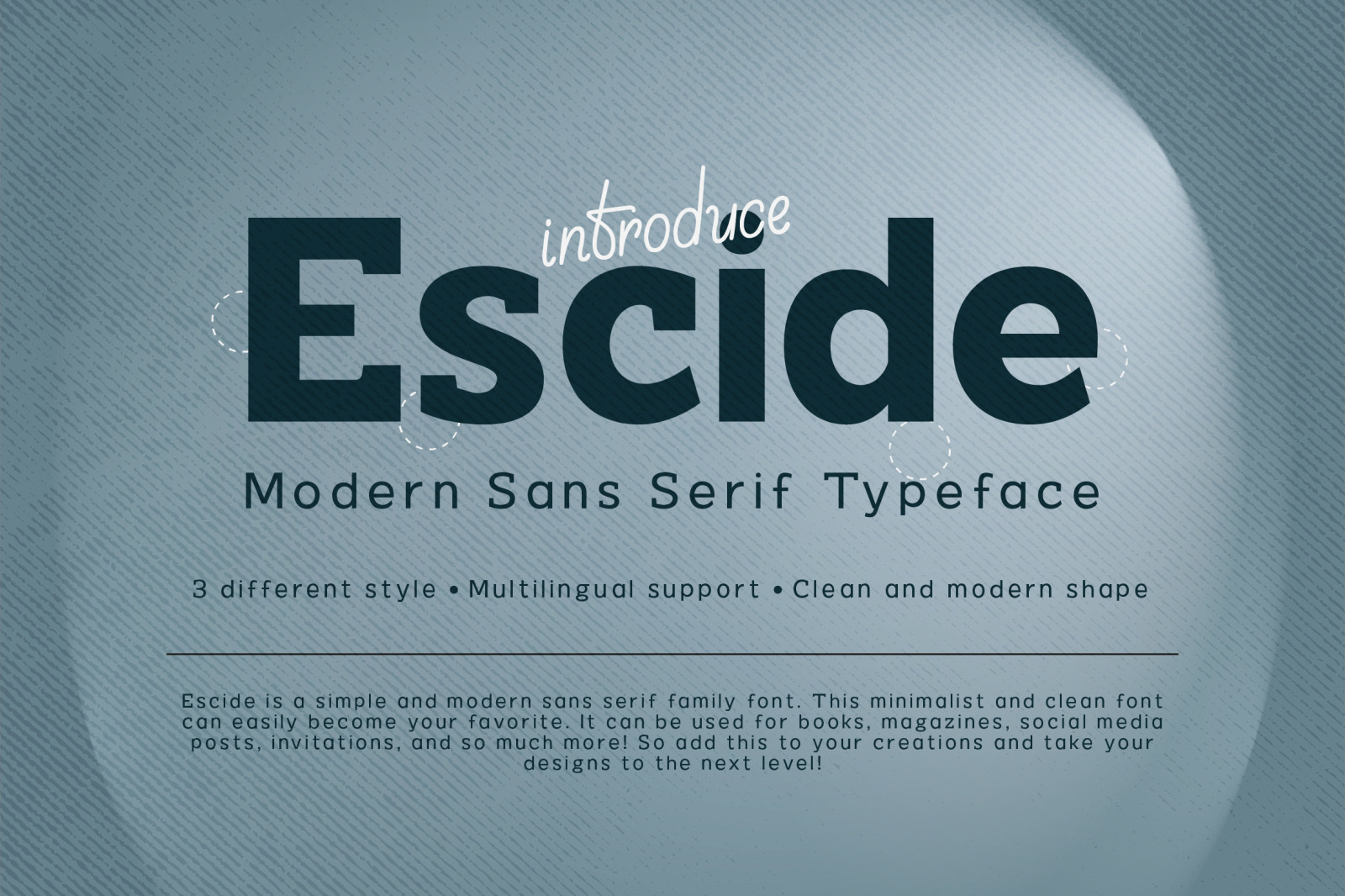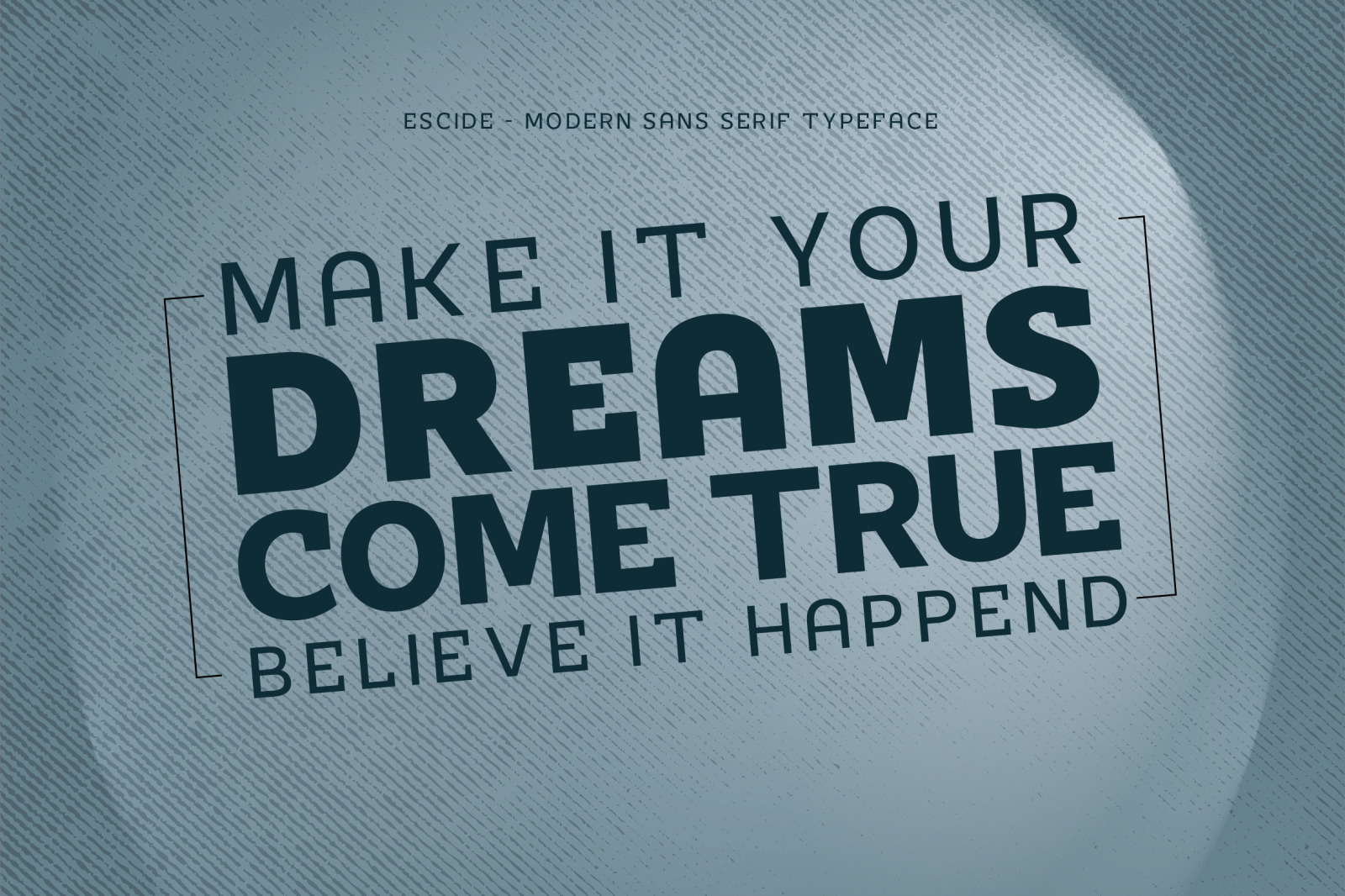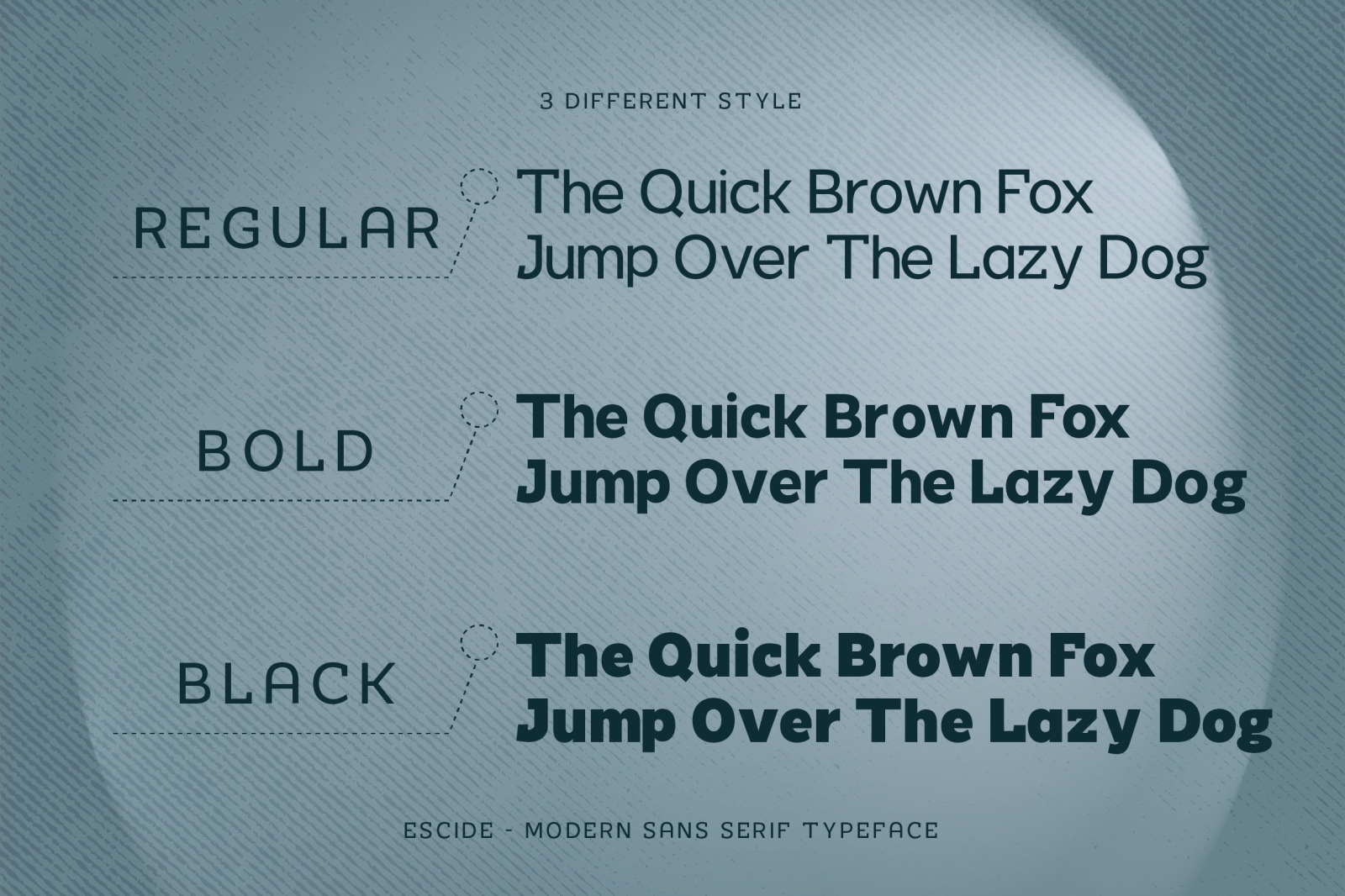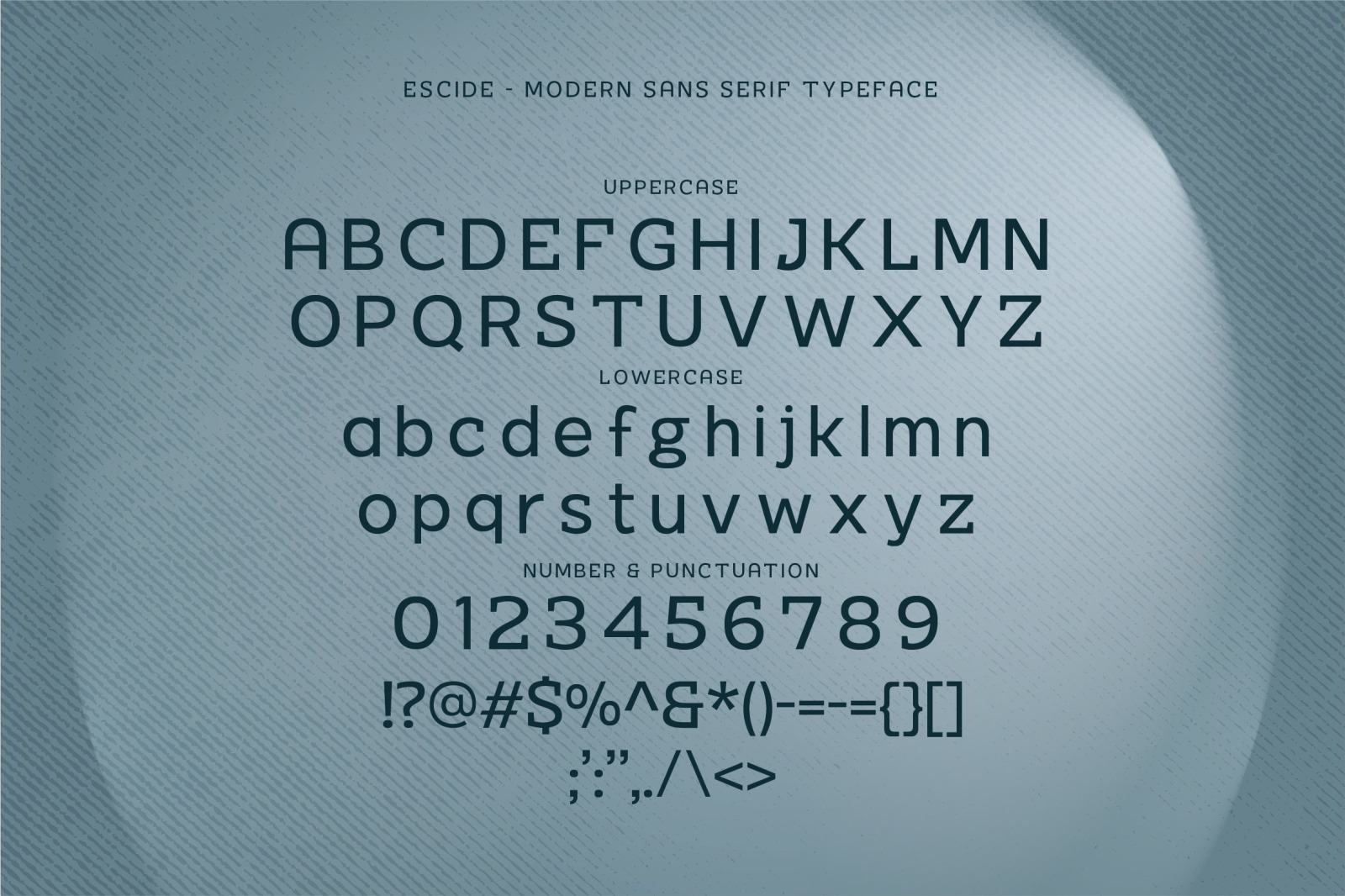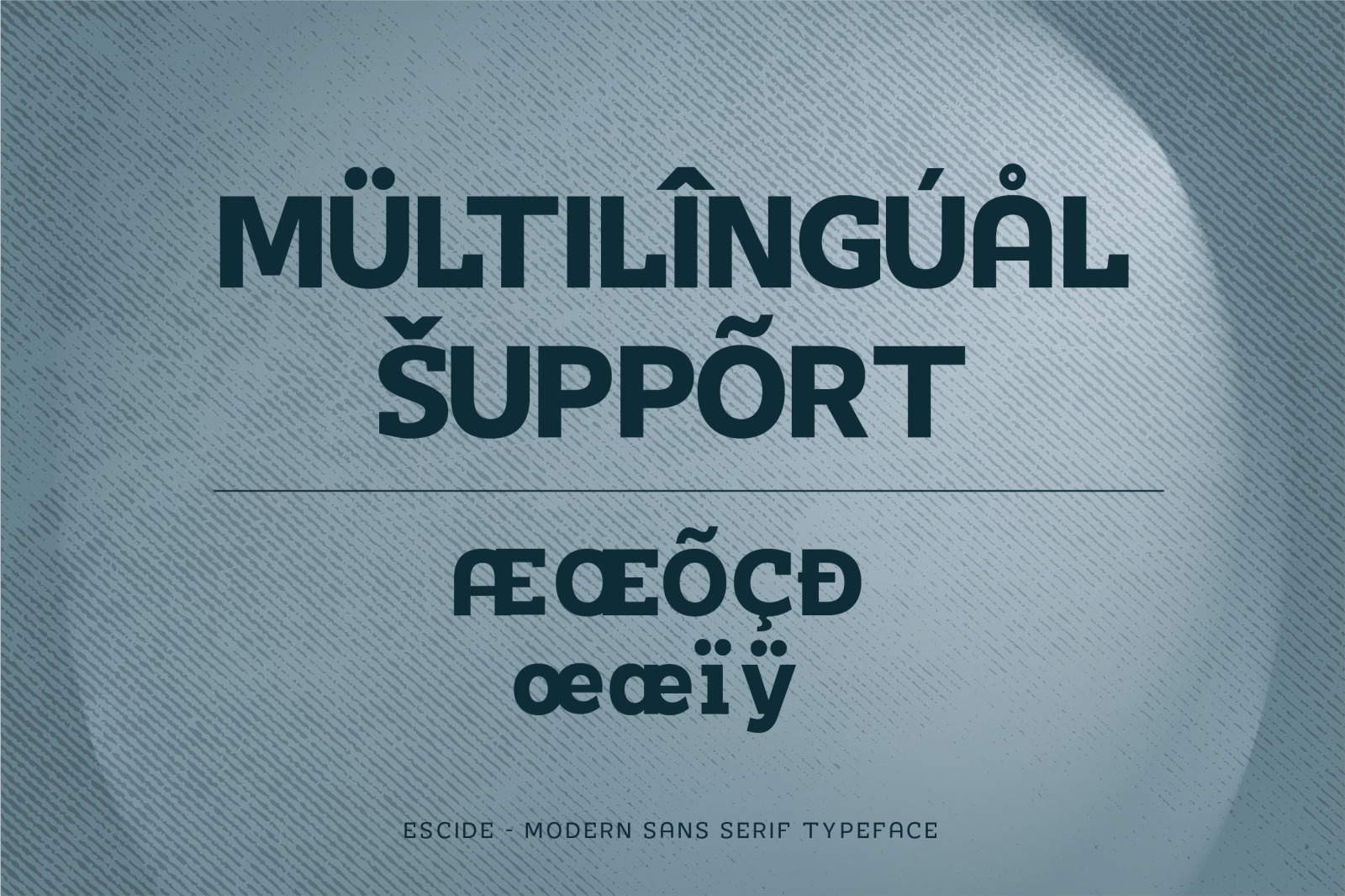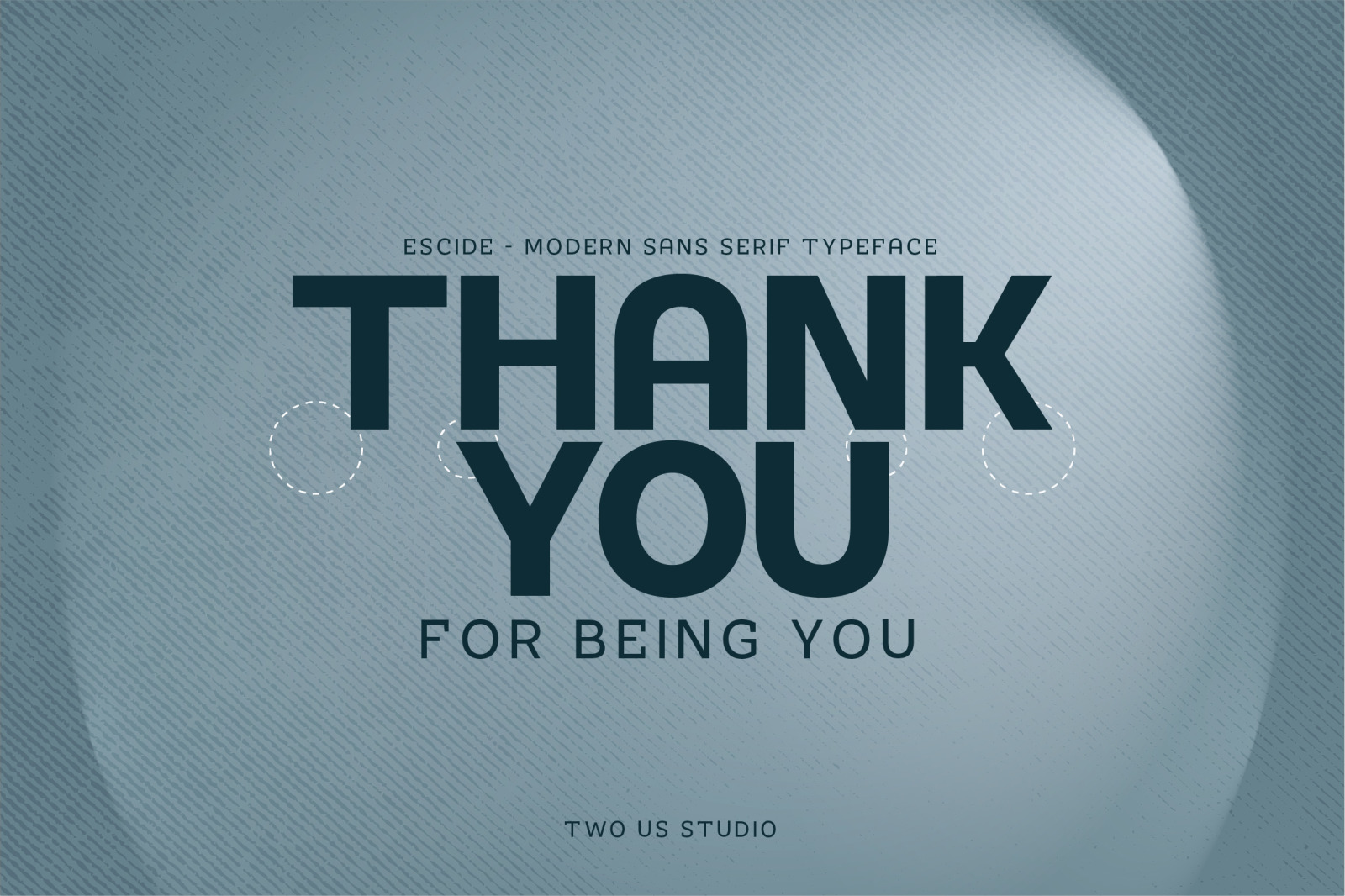
ESCIDE - MODERN SANS SERIF TYPEFACE
Escide - Modern Sans Serif Typeface
Escide is a simple and modern sans serif font. This minimalist and clean font can easily become your favorite. It can be used for books, magazines, social media posts, invitations, and so much more! So add this to your creations and take your designs to the next level! It comes with 3 different style (Regular,Bold,Black)